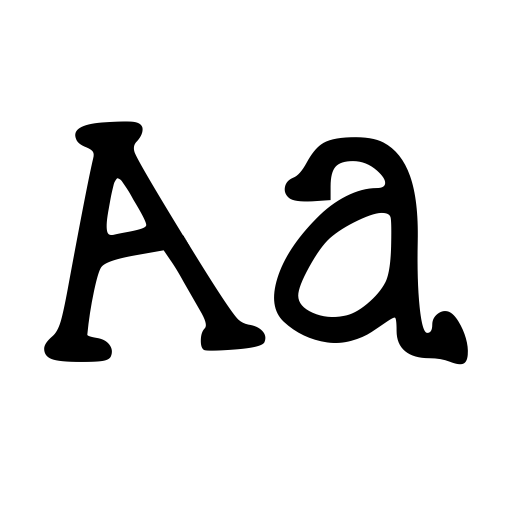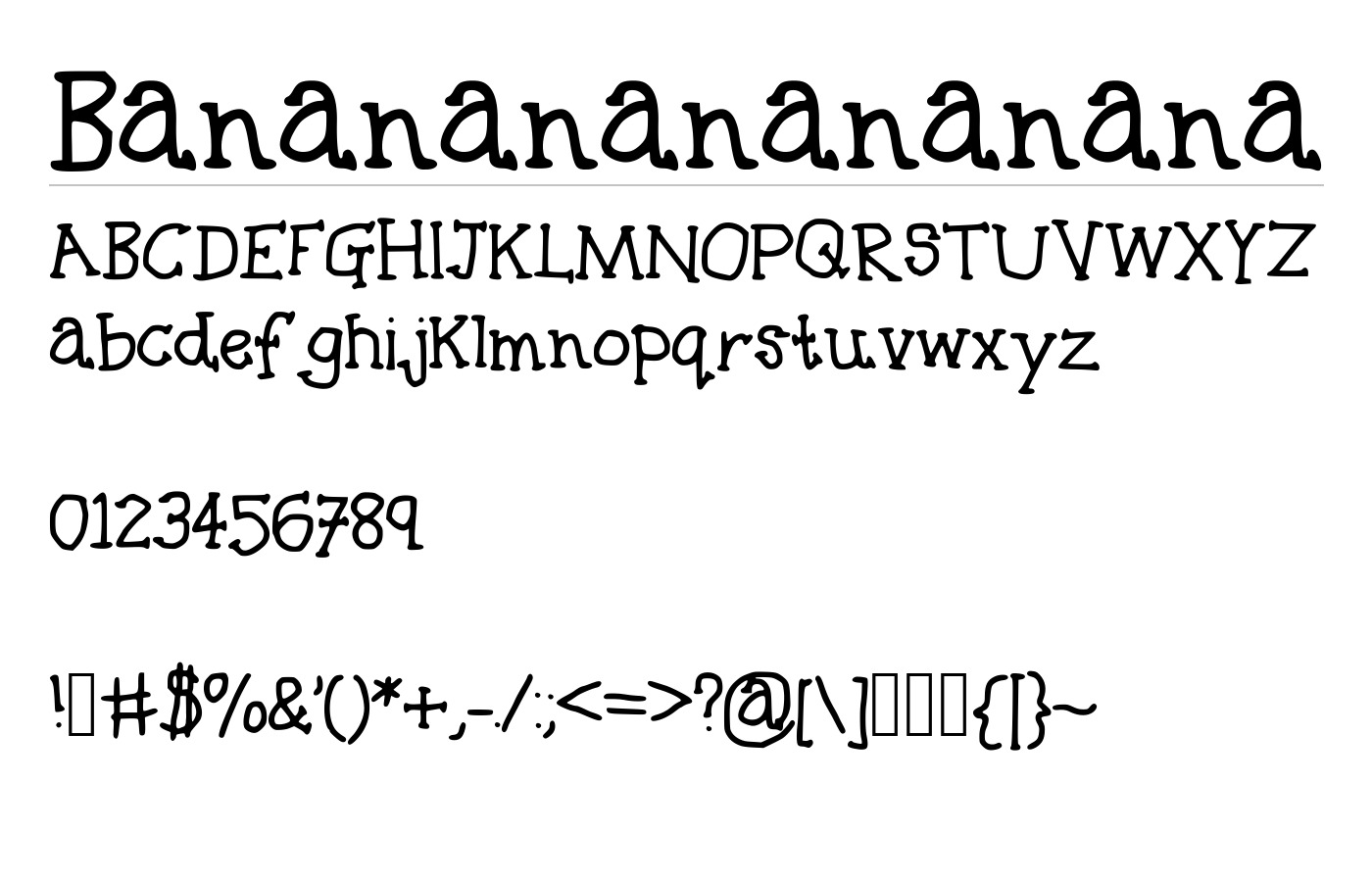
Bananananananana is a playful, quirky serif font with a hand-drawn, whimsical feel. Its irregular letter shapes and subtle stroke variations give it a friendly and informal personality, making it perfect for fun, creative projects, children’s books, and casual branding that seeks to stand out with charm and uniqueness. This font works best in headlines, posters, and packaging where a lively, approachable tone is desired.